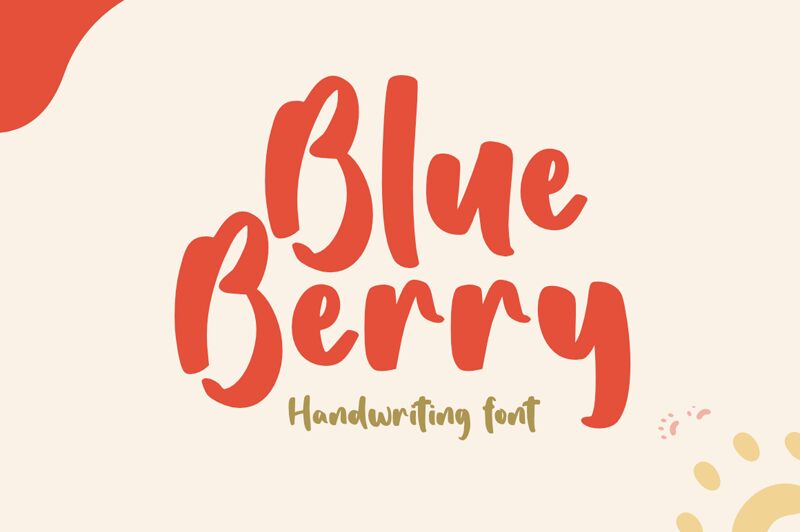
Blue Berry, the bold handwritten font by Viola Type, is a perfect choice for projects that require an expressive and playful touch.
With its whimsical curves and charismatic strokes, this font brings a sense of warmth and authenticity to invitations, greeting cards, and personal stationery. The bold weight of Blue Berry adds emphasis and impact to headlines, logos, and branding materials. Whether you're designing for a fun-filled party invitation or a vibrant logo that stands out from the crowd, Blue Berry is the ideal font to infuse your project with personality and charm.